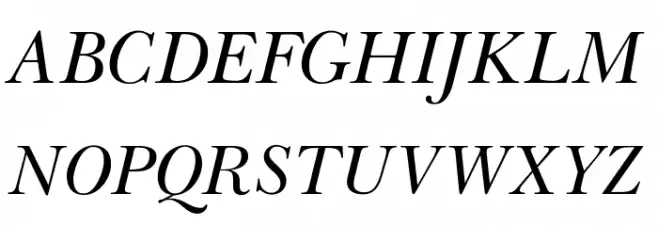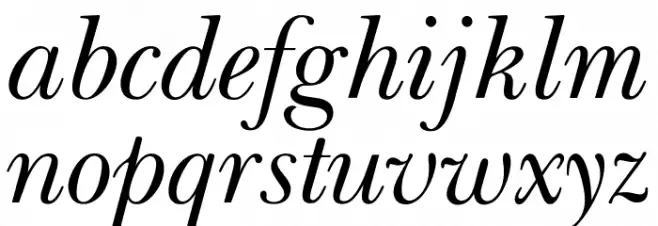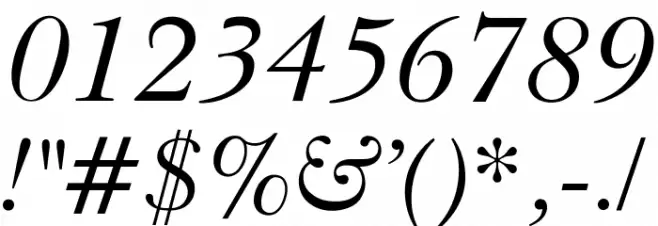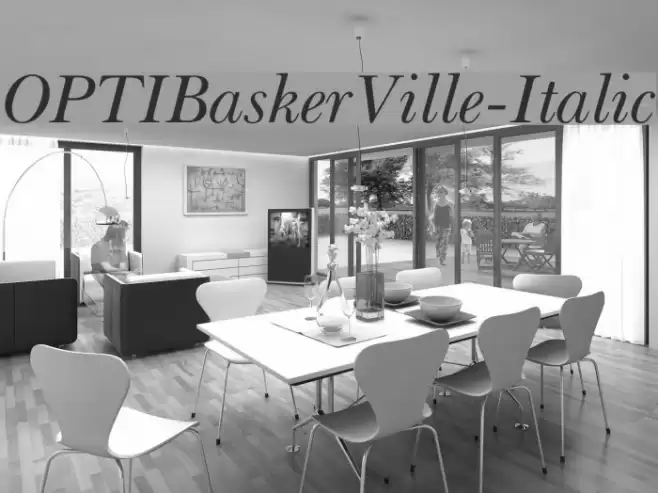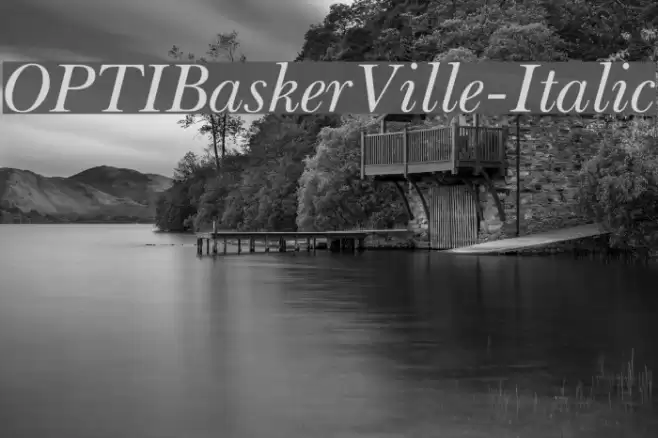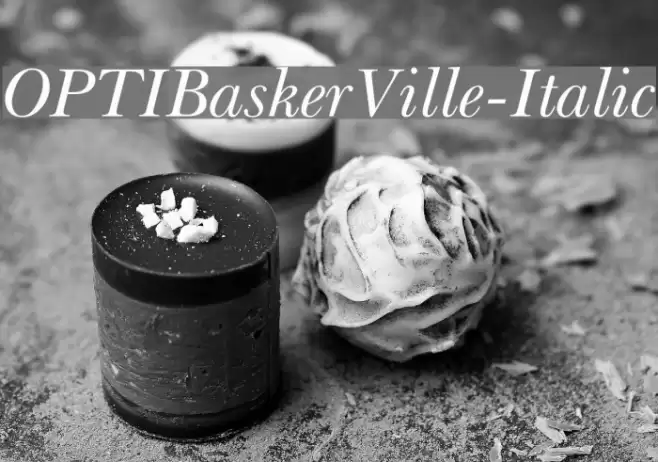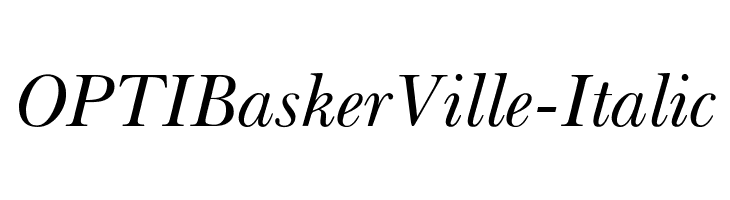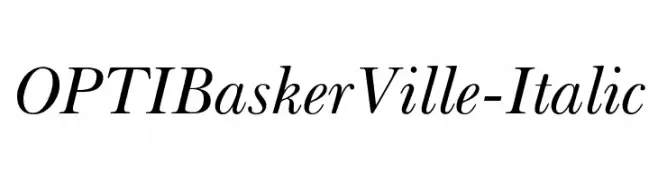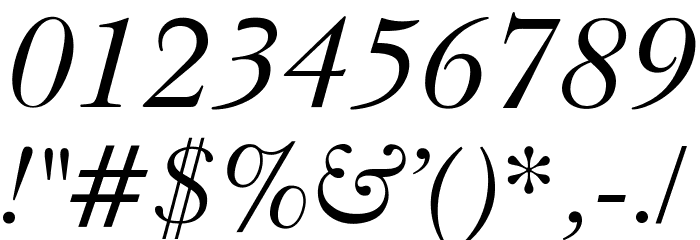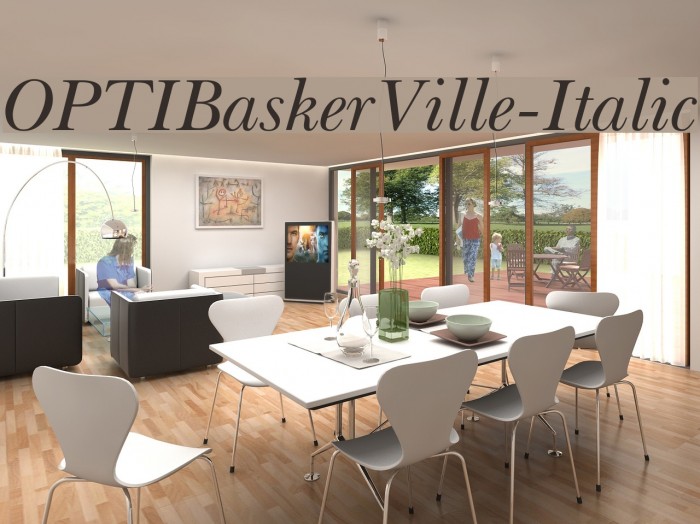
OPTIBaskerVille-Italic
This elegant serif font features a classic and sophisticated style with a distinct italic slant. The characters are gracefully proportioned, with a moderate contrast between thick and thin strokes, giving it a refined and timeless appearance. The uppercase letters are stately and well-defined, while the lowercase letters exhibit a smooth, flowing quality. The numerals are clear and balanced, complementing the overall aesthetic. Special characters are thoughtfully designed, maintaining the font's cohesive look. This font exudes a sense of tradition and formality, making it suitable for a variety of applications.
An elegant serif font with a classic italic style and moderate contrast.
- Proposed Projects: Ideal for formal invitations, editorial design, book covers, and branding projects that require a touch of sophistication.
- Category: Serif
- Overall Style: Classic